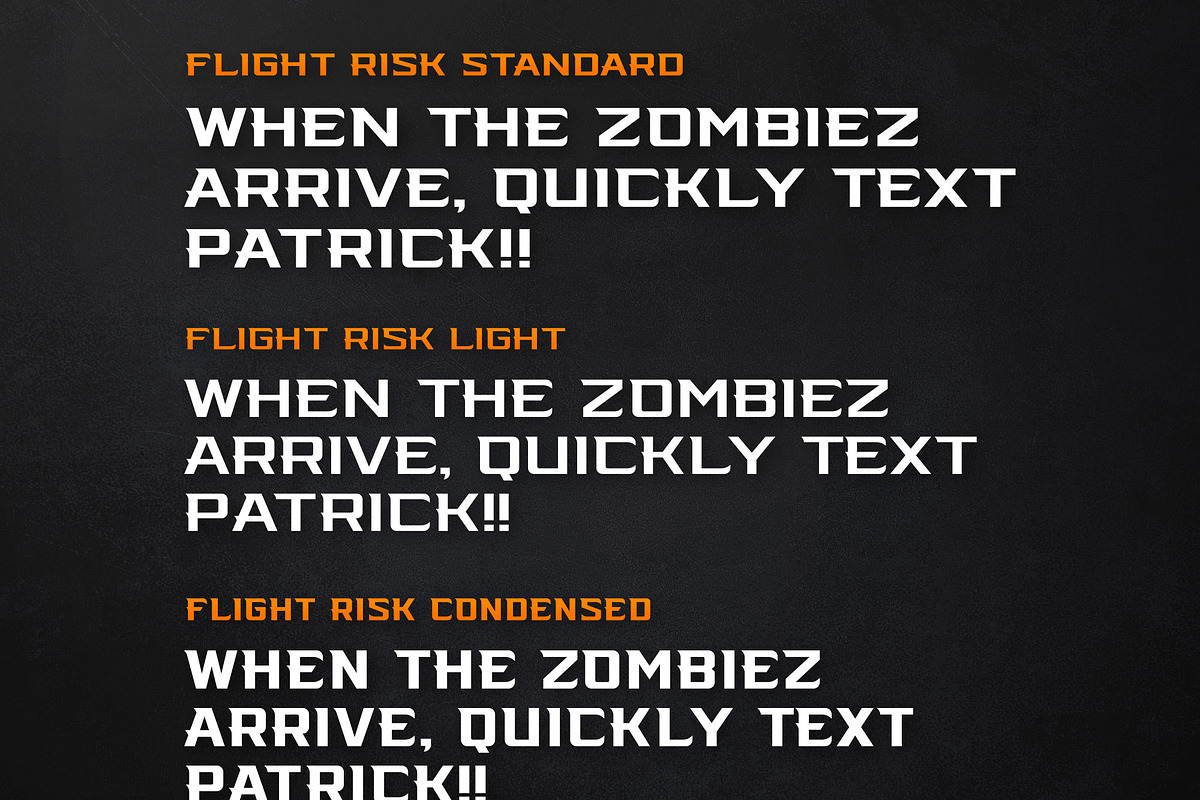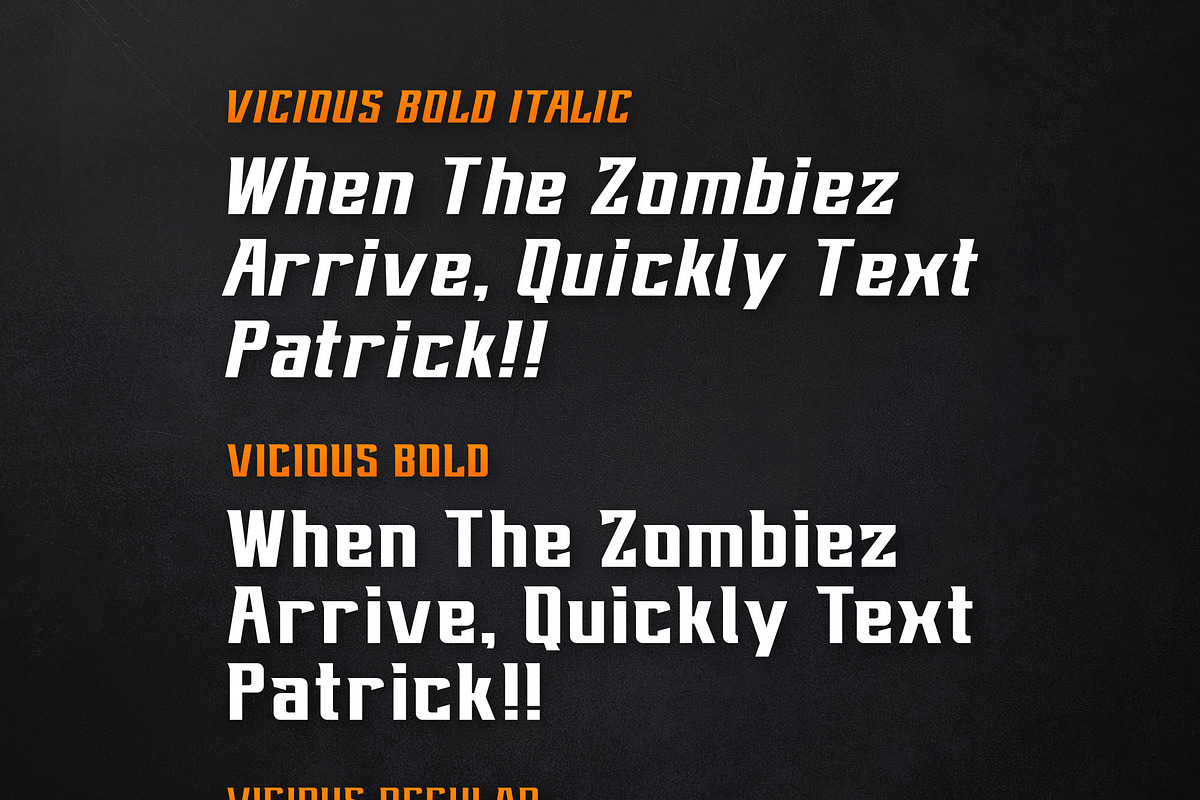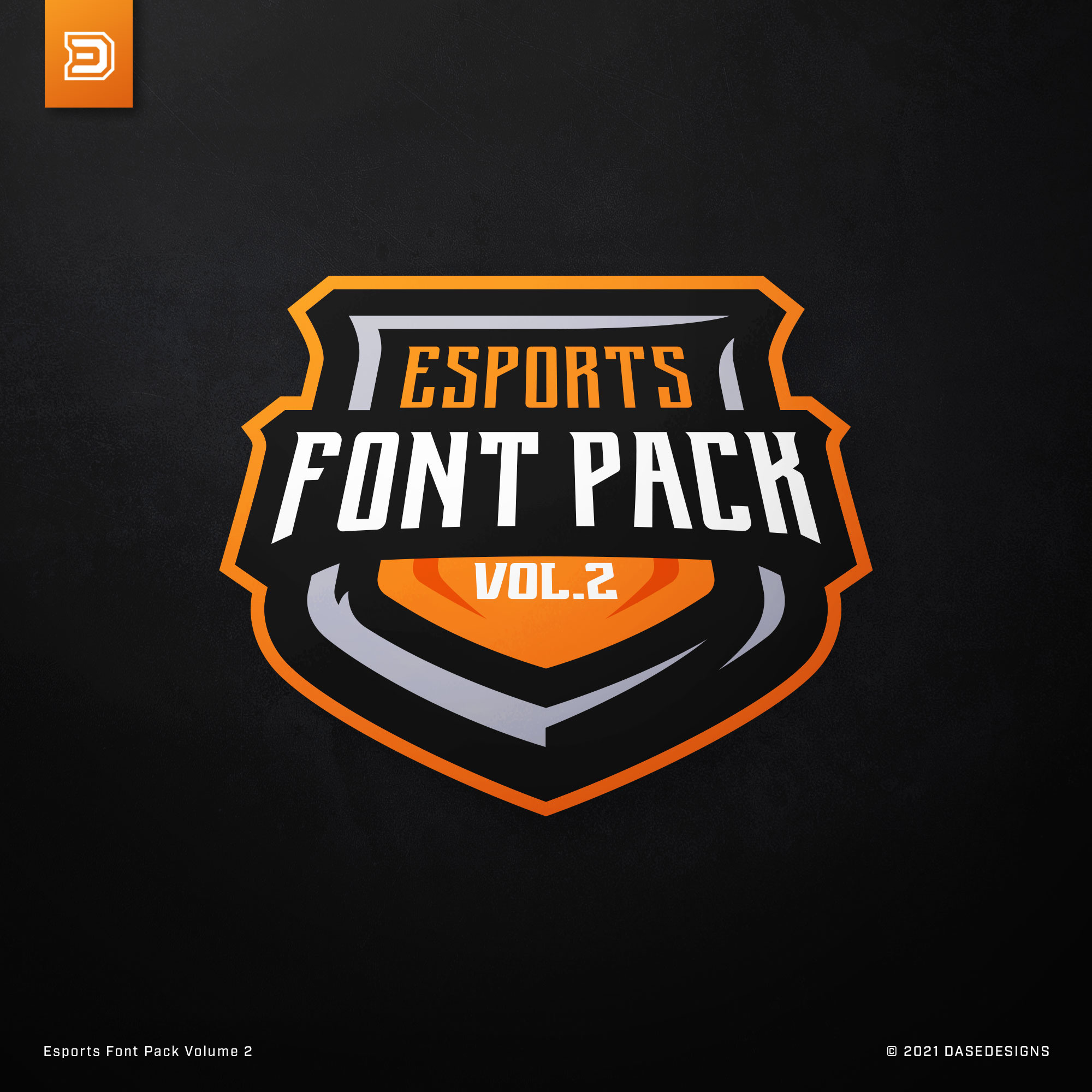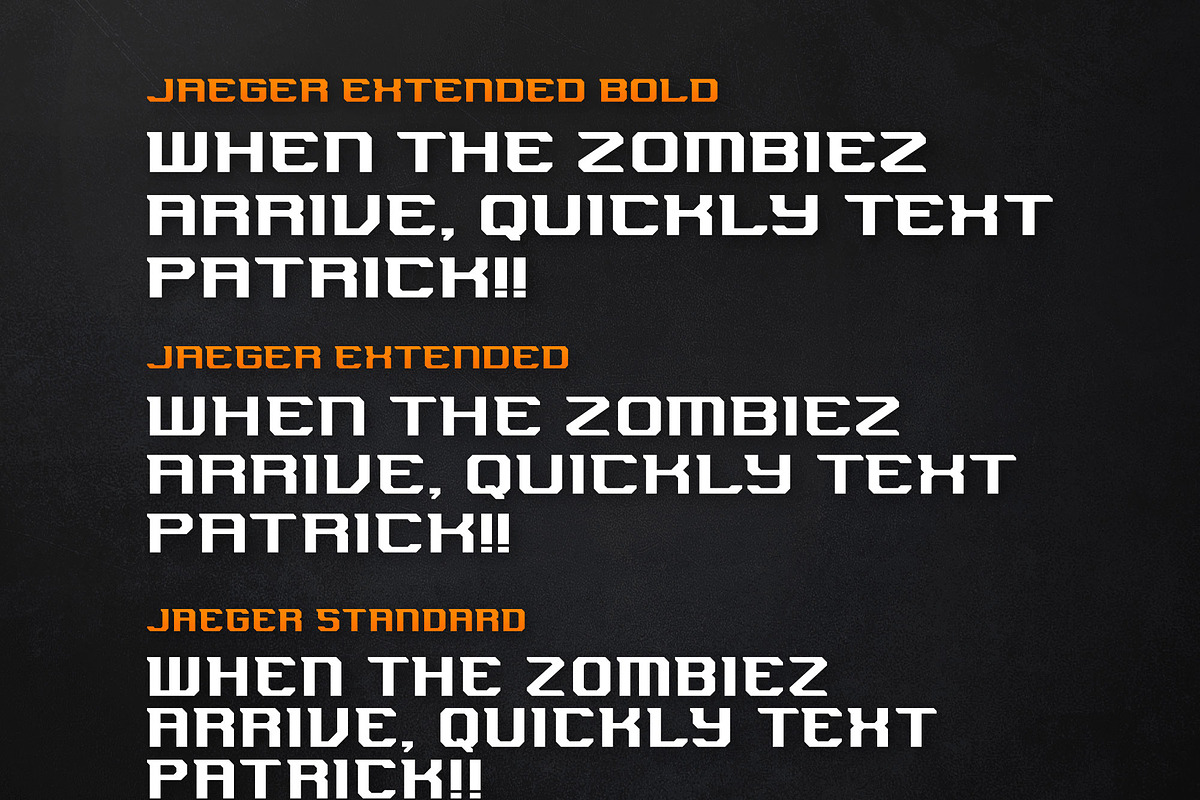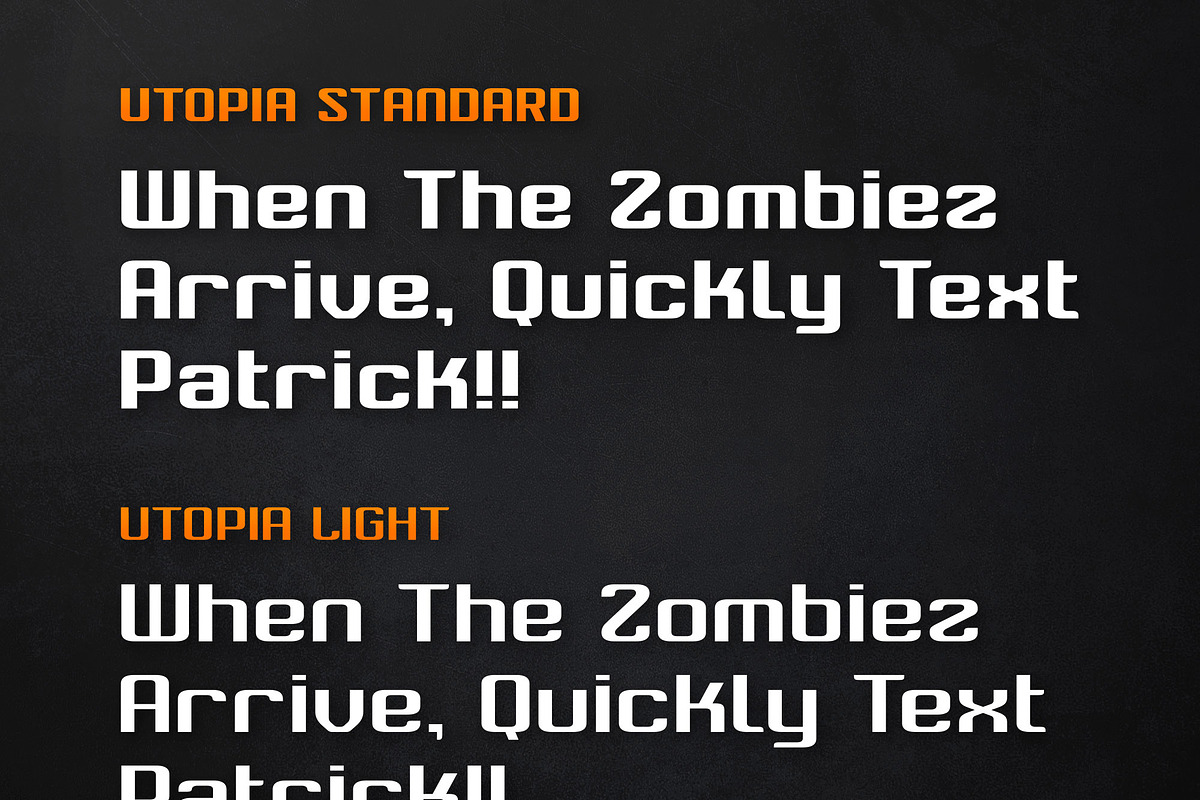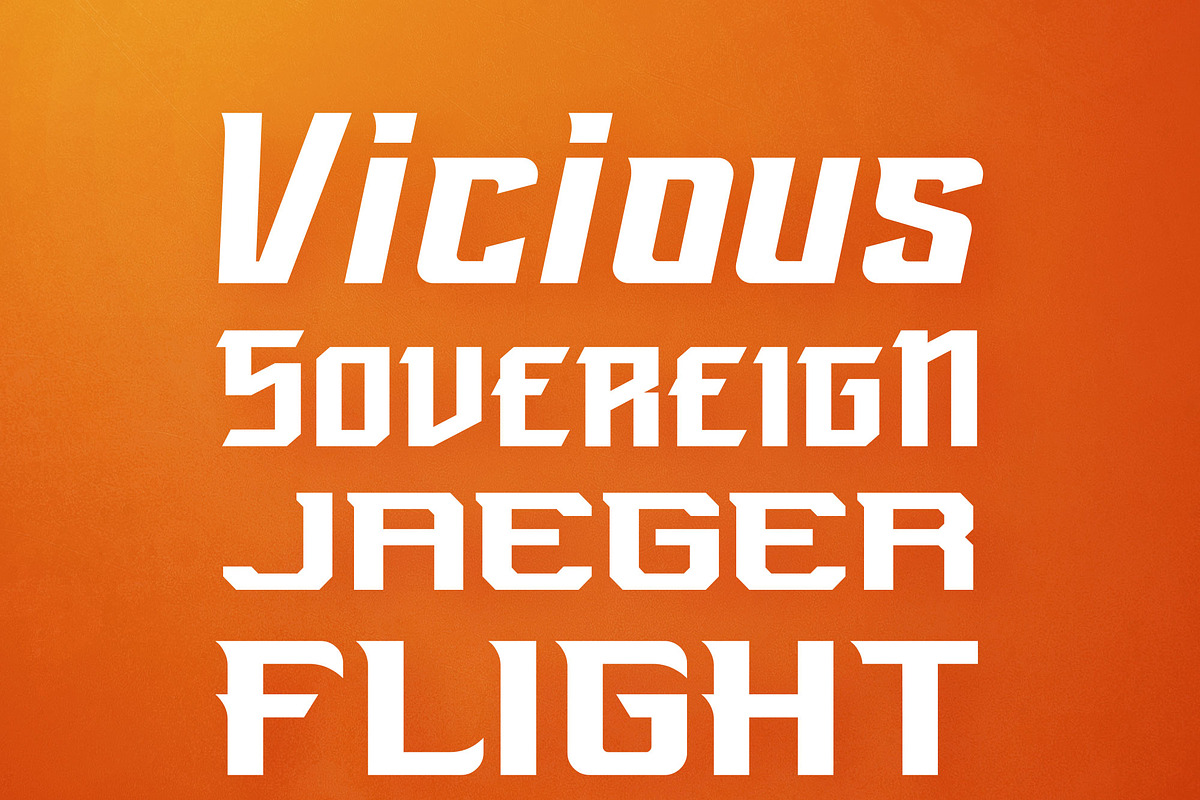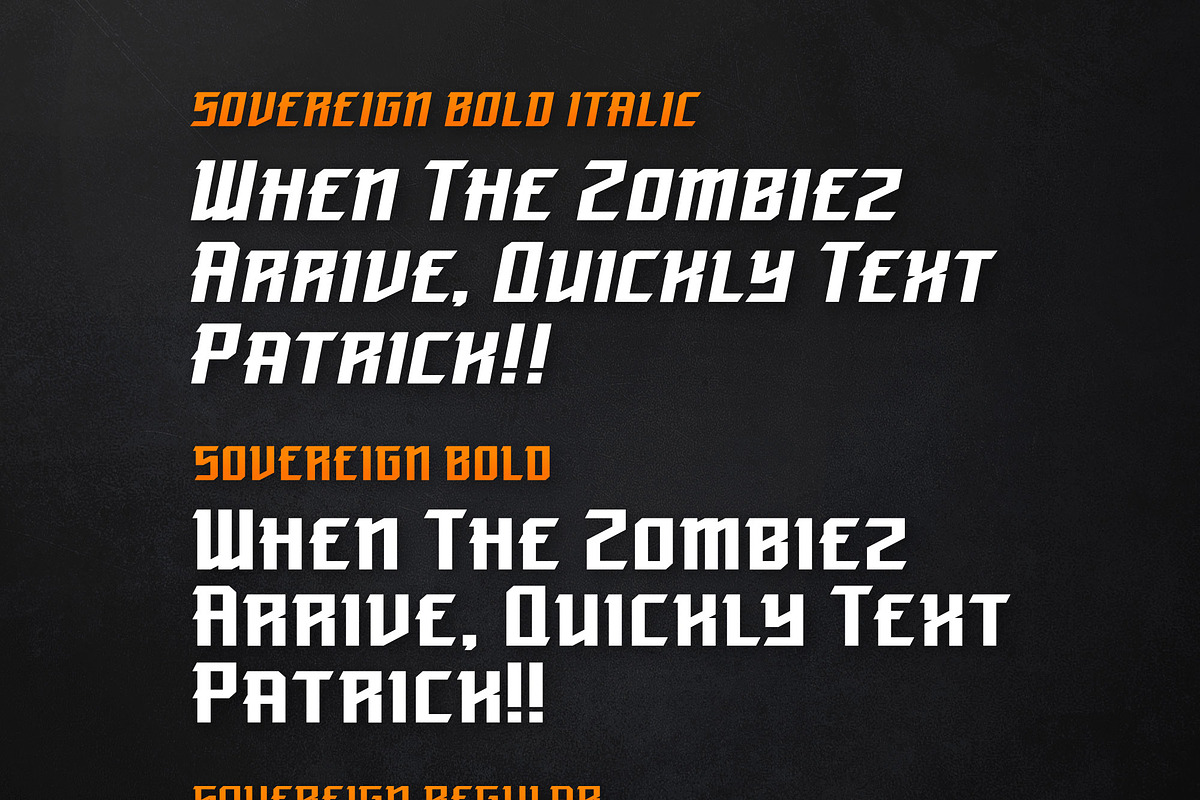
What's up guys its Derrick from DaseDesigns! If you know me, you've heard about my eSports Font Packs
which have been down for a while and are now BACK ONLINE and back in stock same as they've always been.
Get my best selling pack of the Esports Font Pack VOL 2! Which also contains 5 headline based typefaces (primarily all Caps based fonts with numbers & symbols (with certain fonts ALSO including lowercase) with their primary focus being on the style of Sports & Esports logos and industries.
This font pack contains these fonts specifically Flight Risk, Vicious, Sovereign, Jaeger, and Utopia with all fonts having multiple weights and sizes as seen below!